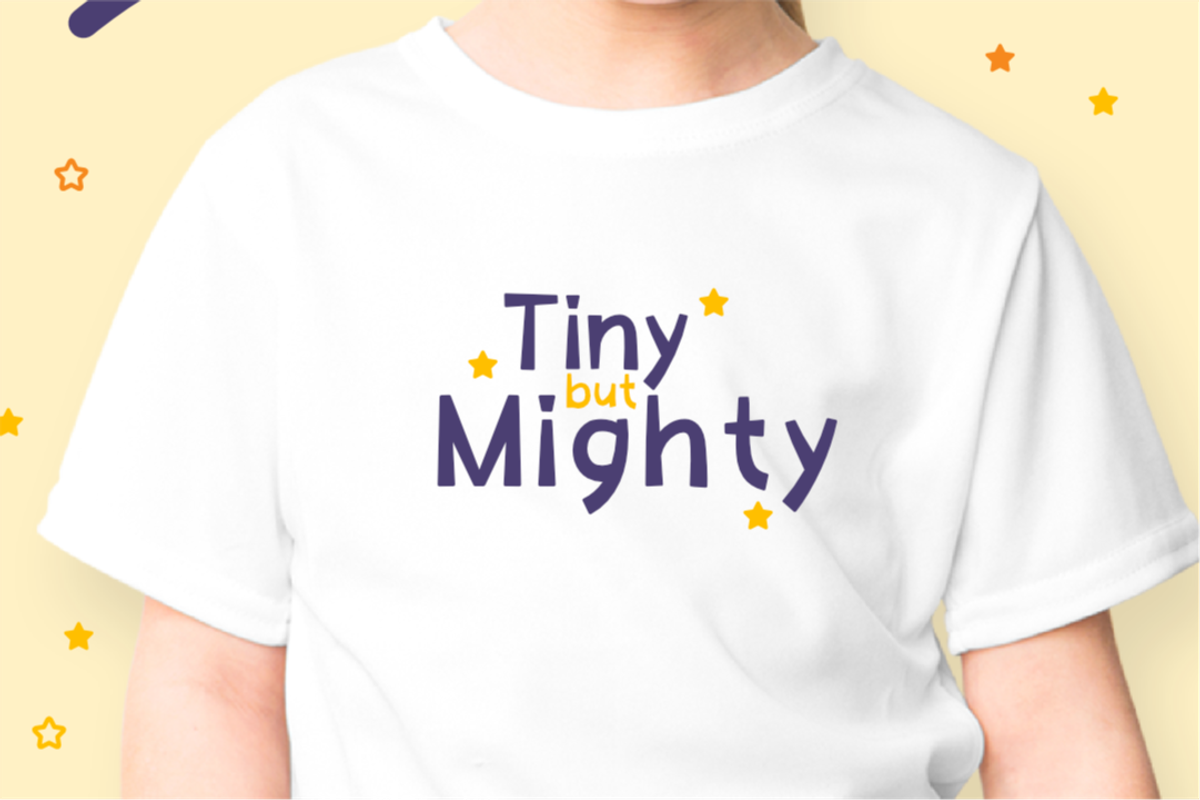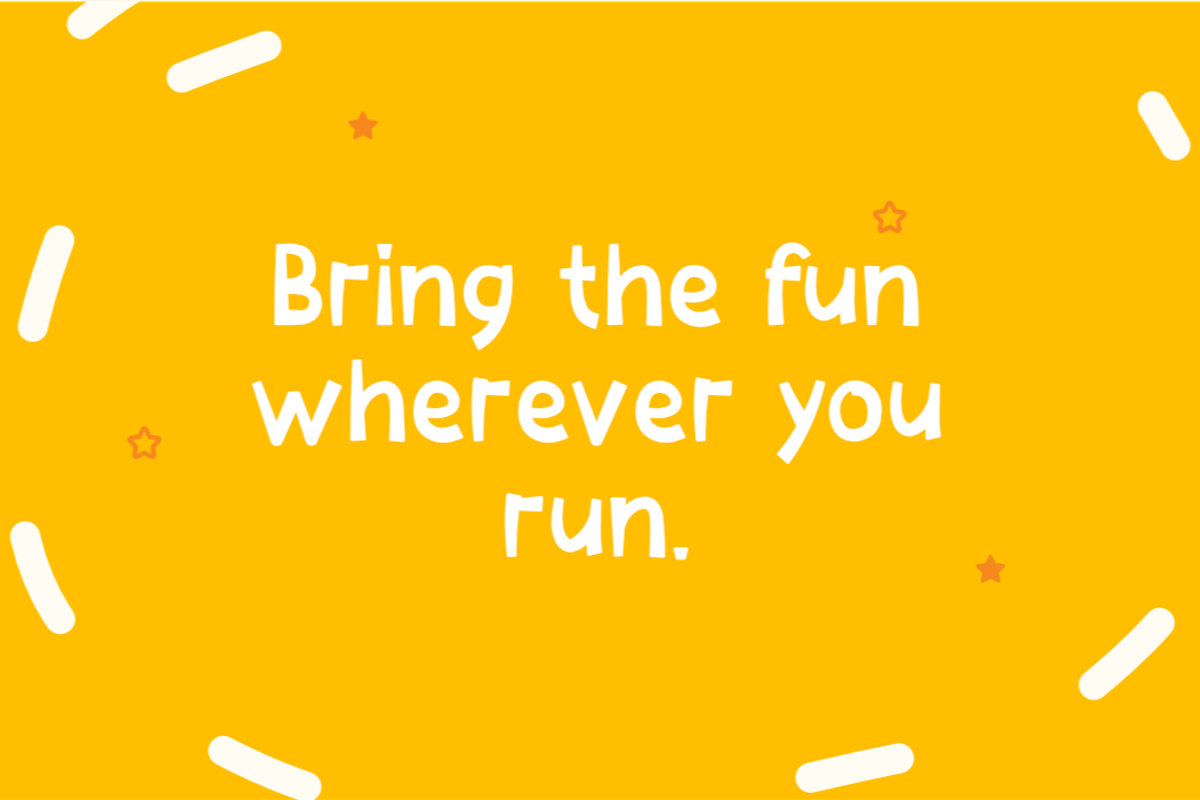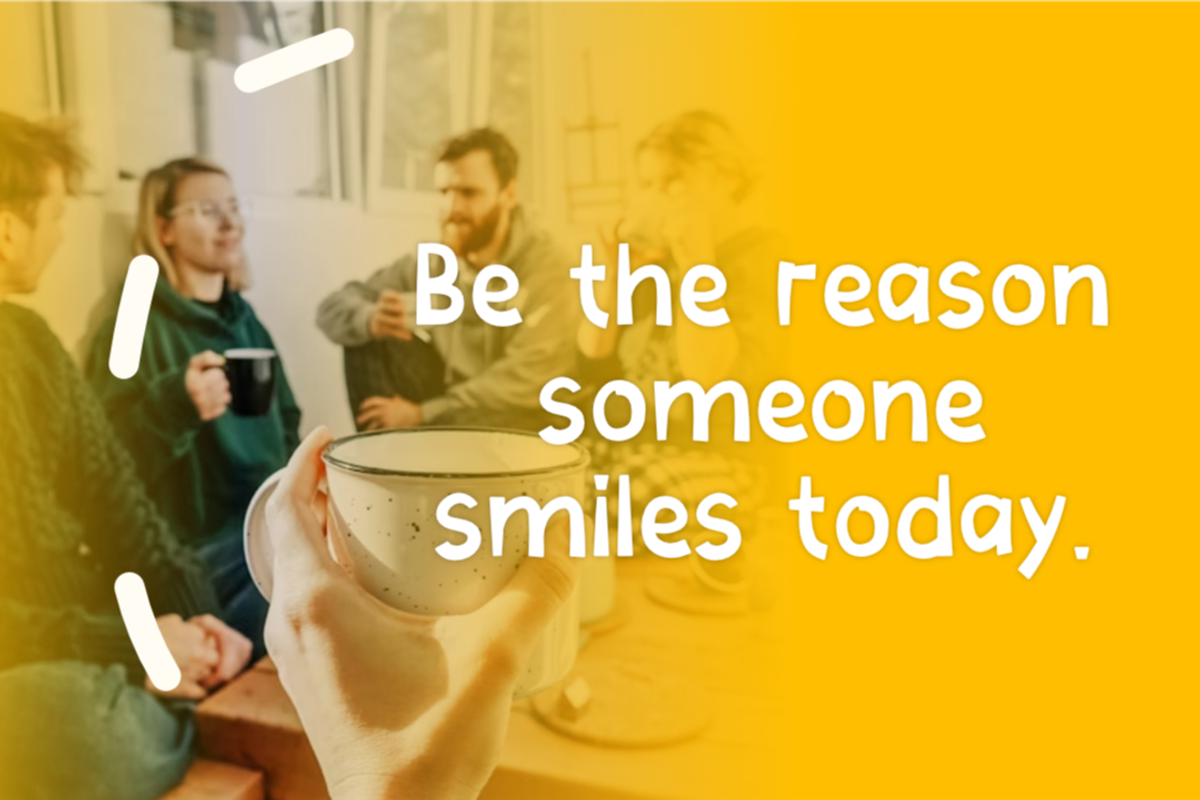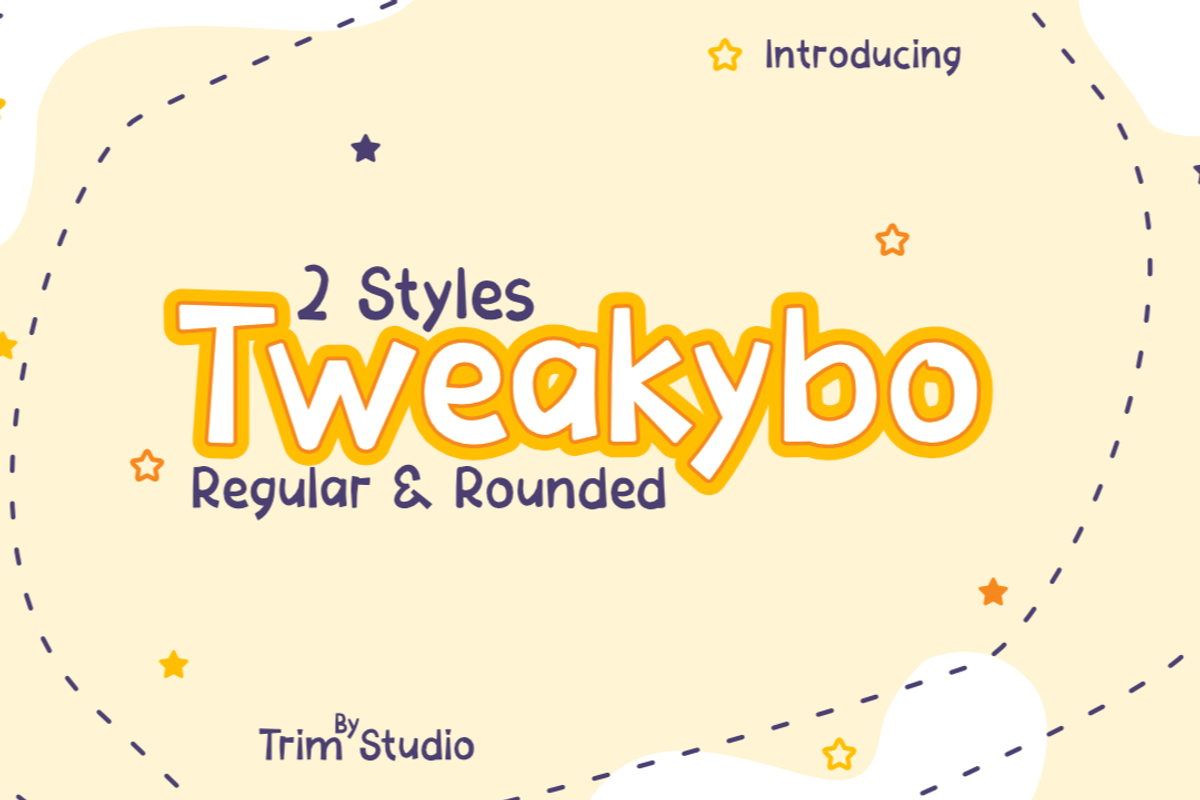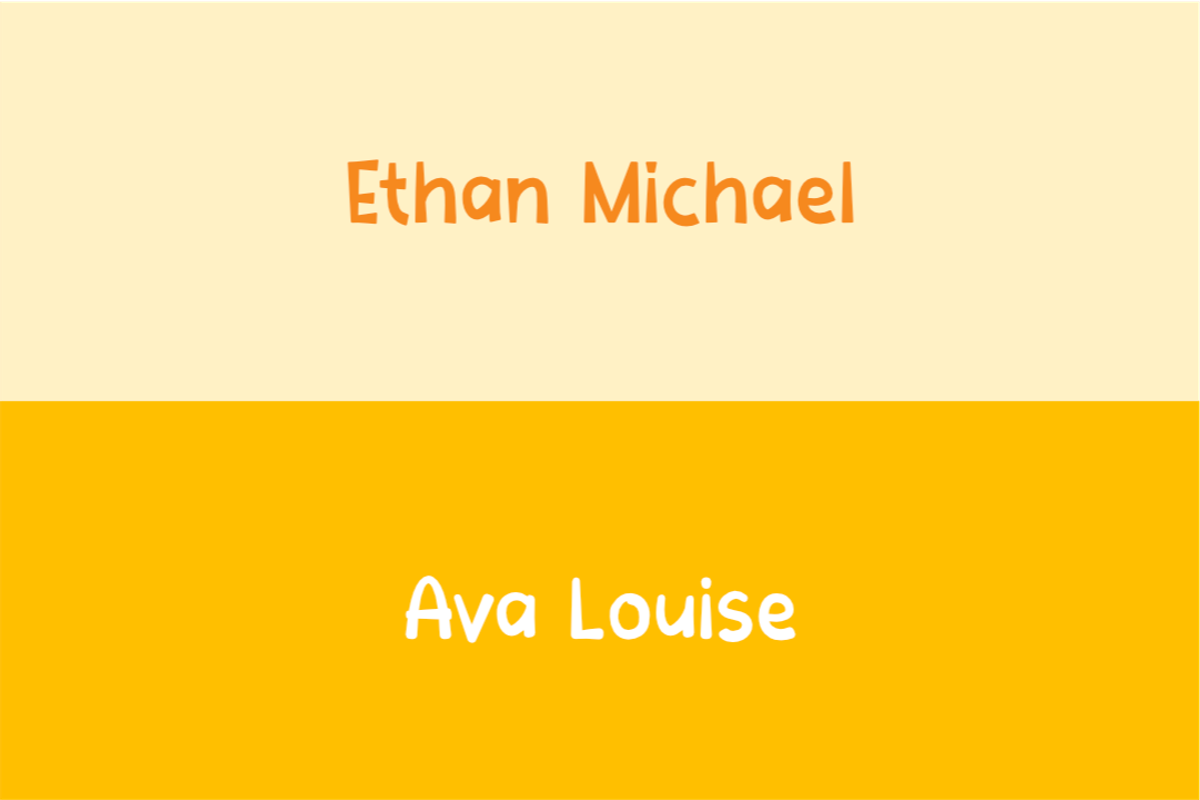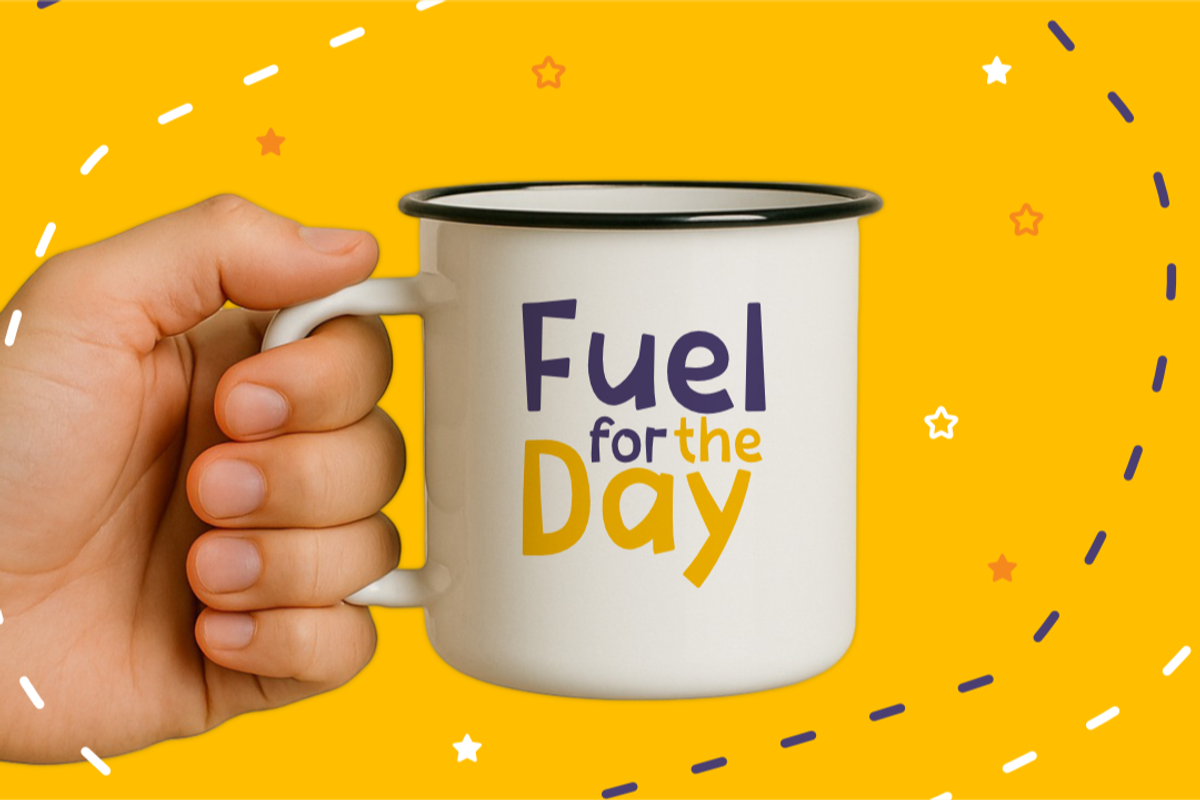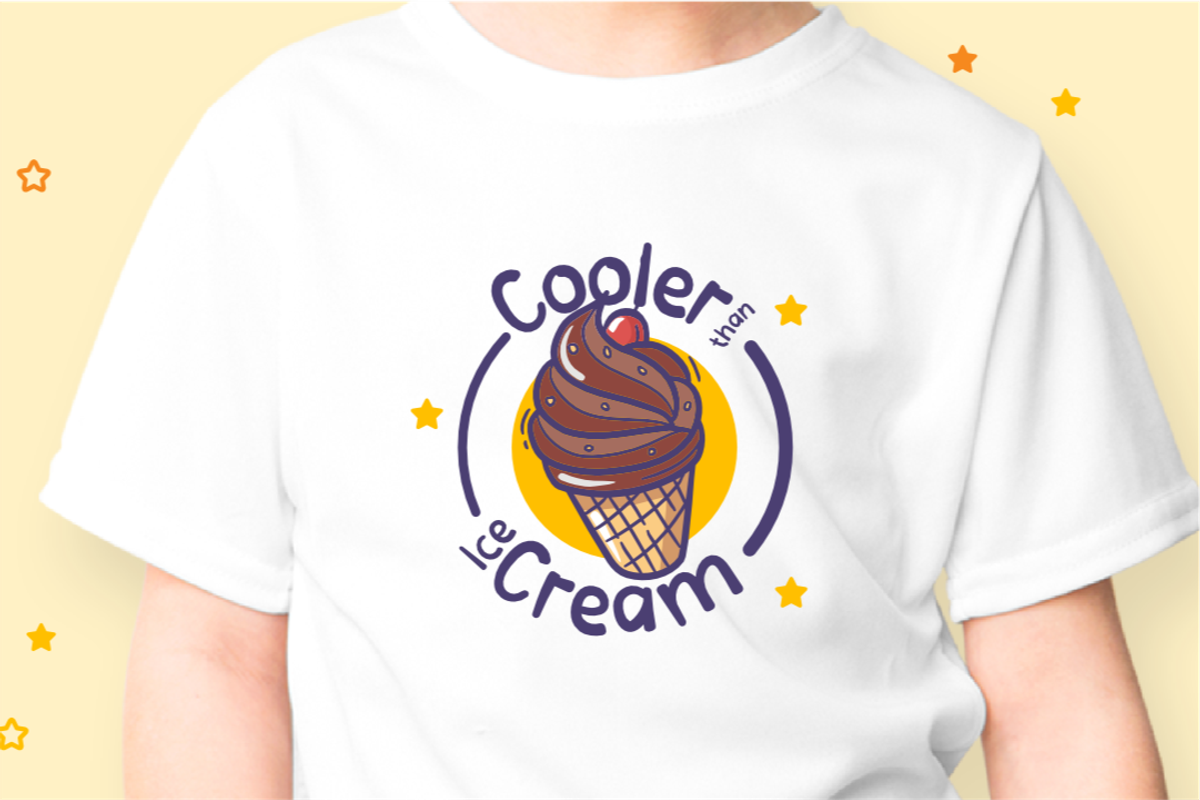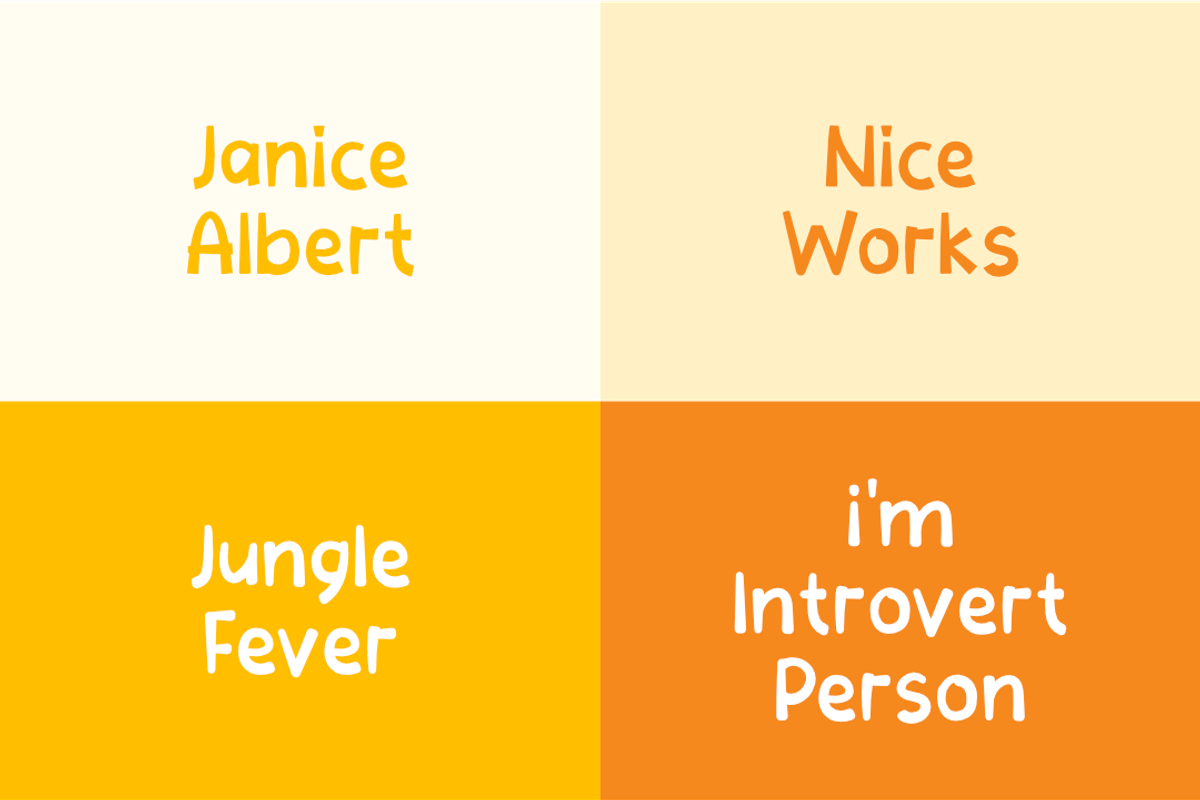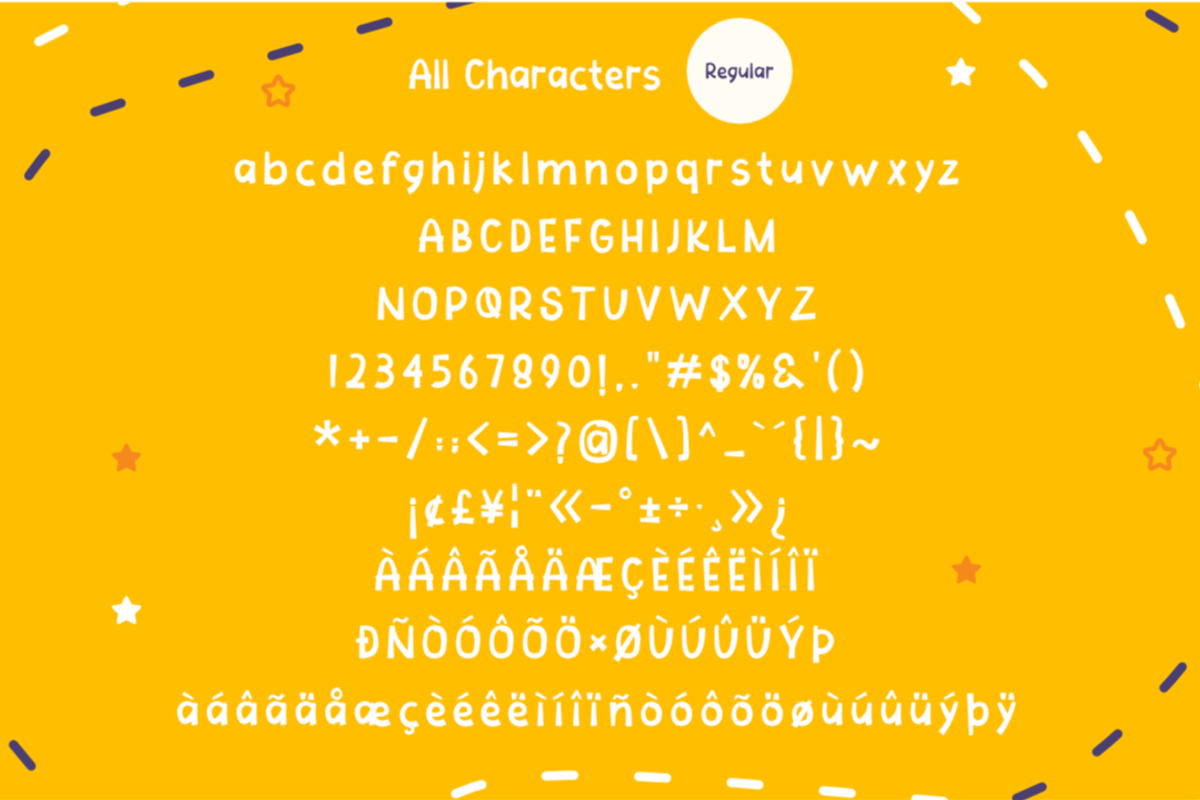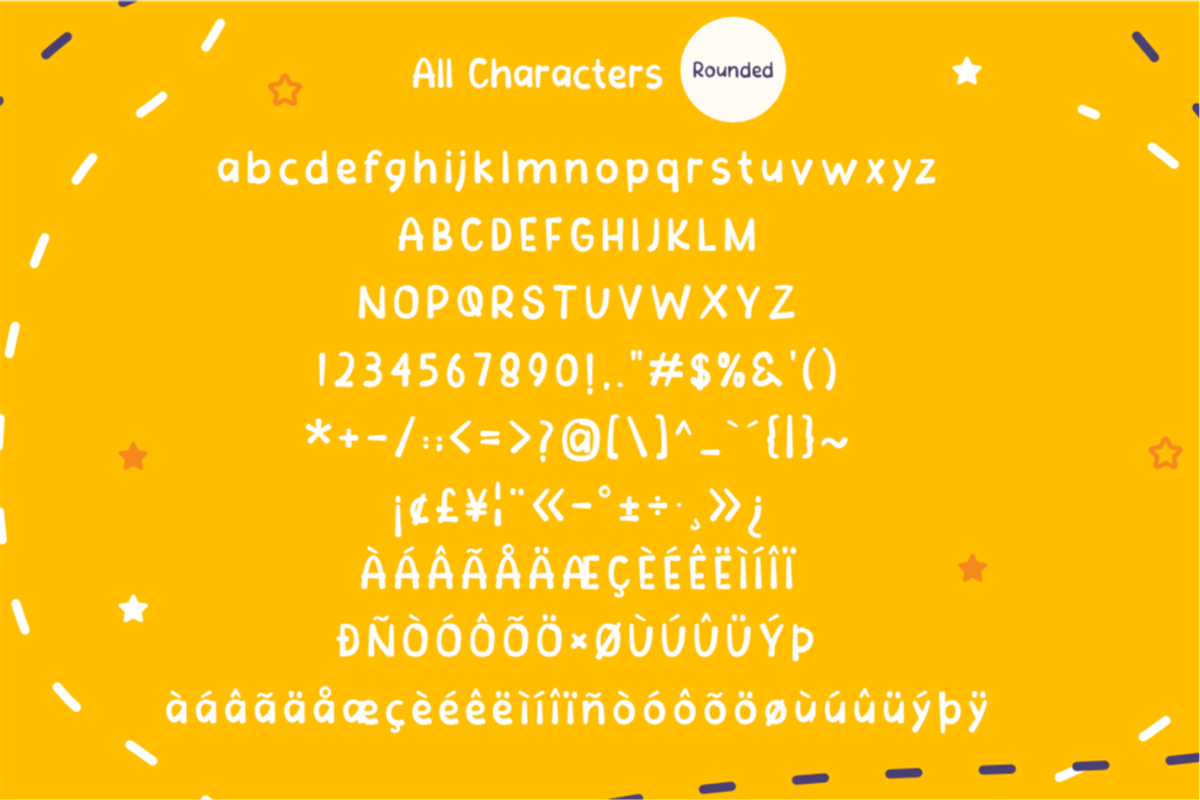
Tweakybo
Tweakybo is a cheerful and imperfect font with a lively, hand-drawn style. Each letter dances slightly off-balance, giving designs a spontaneous, approachable, and creative vibe. Ideal for posters, children’s books, crafts, and anything that needs a personal, joyful touch.